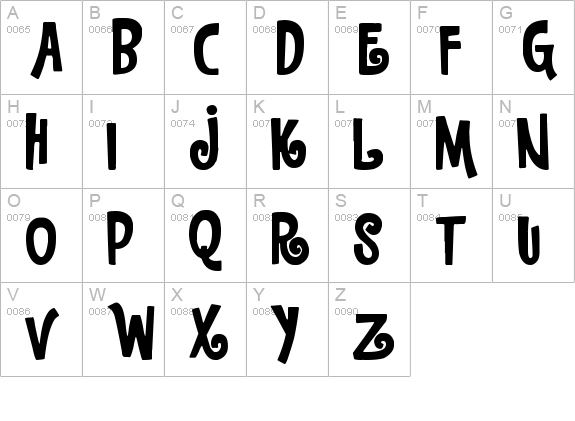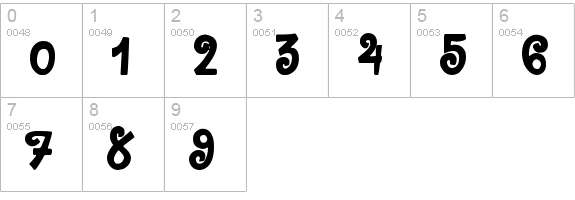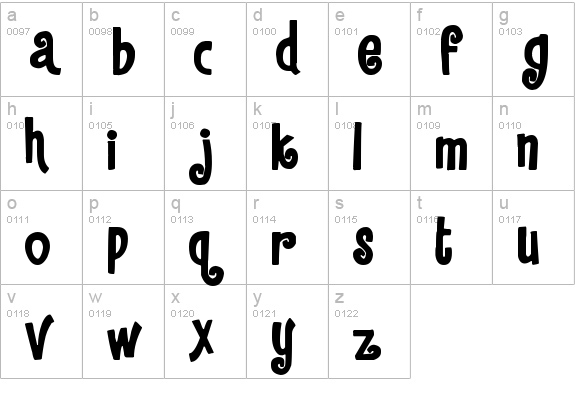
Oh {Photo} Shoot! Font Details
Introducing Oh {Photo} Shoot! font, a playful and vibrant typeface perfect for adding a touch of whimsy to your designs. This unique font features quirky letterforms with a hand-drawn feel, making it ideal for projects that call for a fun and friendly aesthetic. Whether you're working on a poster, greeting card, or social media graphic, Oh {Photo} Shoot! font is sure to make your text pop! Best of all, Oh {Photo} Shoot! font is completely free to download at FontsMarket.com. Simply head over to the website and grab your copy today to start adding a dose of creativity to your projects. With its eye-catching style and easy readability, Oh {Photo} Shoot! font is a must-have addition to any designer's toolkit. Don't miss out on this fantastic font - download it now and let your creativity shine!